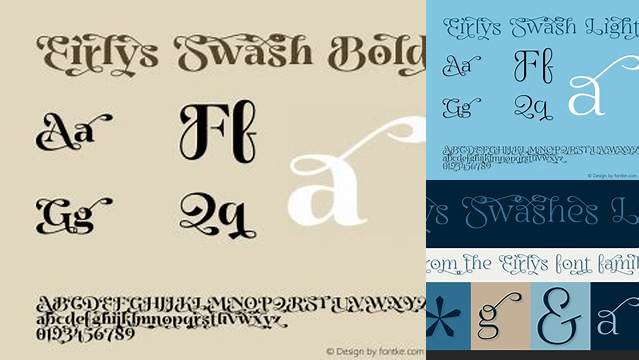
Eirlys Swash Font Free Download: Your Ultimate Guide to a Bold Typography Choice
Hey everyone, are you ready to dive into the world of Eirlys Swash, a font that's been making waves? If you're looking for a font that’s both stylish and impactful, then you're in the right place. This guide will walk you through everything you need to know about the Eirlys Swash font, including how to get it for free, and how to use it to make your designs pop.
What is Eirlys Swash Font?
So, what exactly is Eirlys Swash? Eirlys Swash is a modern, elegant font known for its distinctive swashes and bold presence. Designed with a touch of sophistication, this font is perfect for projects that need to grab attention while maintaining a touch of class. The font’s unique swashes, which are the decorative flourishes on certain letters, add a dynamic and artistic flair, making it ideal for headings, logos, and any design where you want to make a statement. Imagine your text coming alive with these elegant swirls and curves – that’s the power of Eirlys Swash.
This font isn’t just about looks, though. Eirlys Swash is also versatile. It can be used in a variety of projects, from creating eye-catching social media graphics to designing elegant invitations. The bold nature of the font ensures that your message is seen, and its stylish design helps to leave a lasting impression. Whether you're a designer, a blogger, or just someone who loves playing with fonts, Eirlys Swash is a fantastic tool to have in your toolkit. Its ability to blend boldness with elegance makes it a top choice for many.
When using Eirlys Swash, consider the overall tone of your project. Because of its decorative elements, it's best used in contexts where you want to convey a sense of creativity, luxury, or playfulness. While it can work in body text in certain designs, it's generally most effective for headings, titles, and short phrases where its unique character can shine. This is a font that’s designed to be a showstopper, so don’t be afraid to let it take center stage in your designs. Remember, the goal is to create something that not only looks good but also communicates effectively, and Eirlys Swash helps you achieve exactly that. So, whether you're looking to make a bold statement or add a touch of elegance, this font is definitely worth exploring!